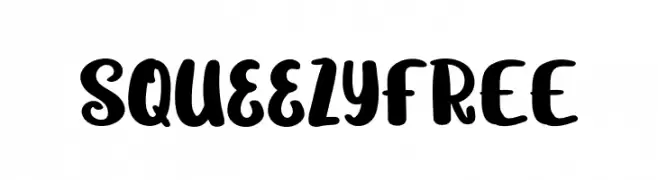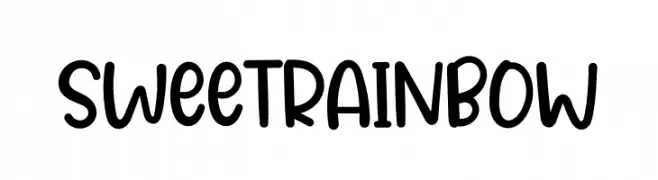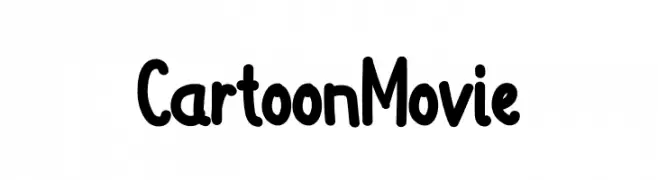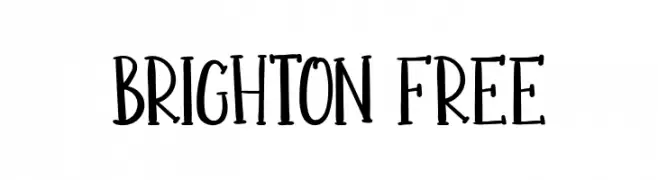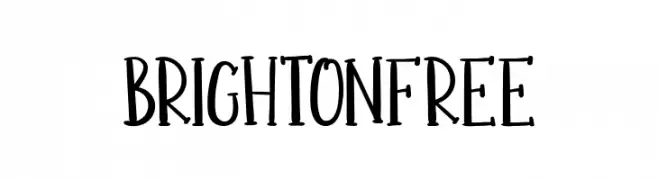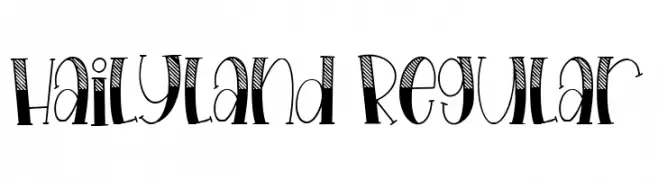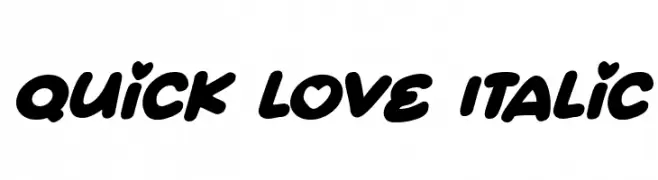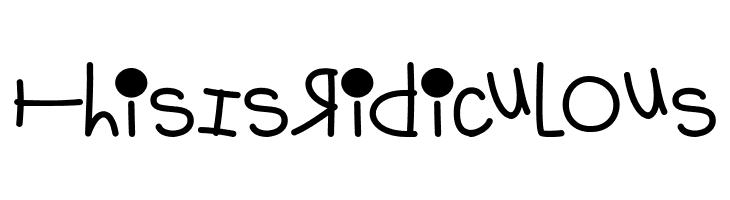
( Fonts by Vunira Design )
A playful, bold, and handwritten-style font with rounded characters.
( Fonts by Eric Samossa )
A playful, hand-drawn font with rounded edges and a whimsical style.
( Fonts by Septo Adi Wicaksono )
A bold, playful font with rounded characters, perfect for creative projects.
( Fonts by Eddy Goodboy )
A playful, bold font with rounded strokes and a whimsical style.
( Fonts by Regulerstudio )
A playful, handwritten font with bold, rounded characters.
( Fonts by Vunira Design )
A playful, hand-drawn font with a whimsical and casual style.
( Fonts by Vunira Design )
A playful, hand-drawn font with tall, narrow characters and a whimsical style.
( Fonts by Creatype Studio )
A playful and decorative font with high contrast and whimsical design.
( Fonts by Darrell Flood )
A bold, playful, handwritten-style font with rounded, italicized characters.
( Fonts by Darrell Flood )
A playful, bold font with rounded, bubbly characters.